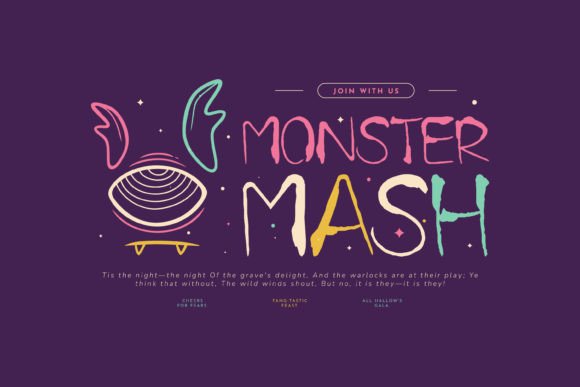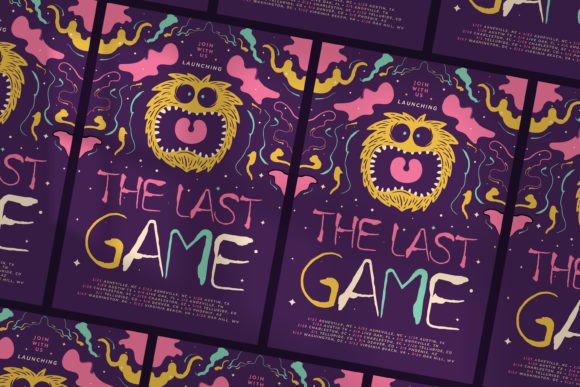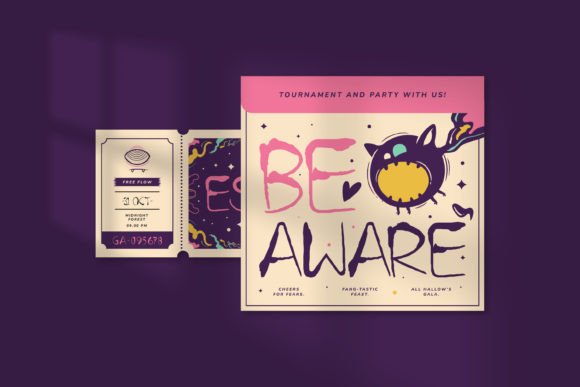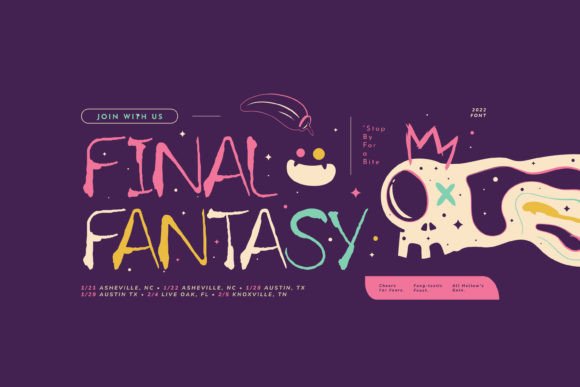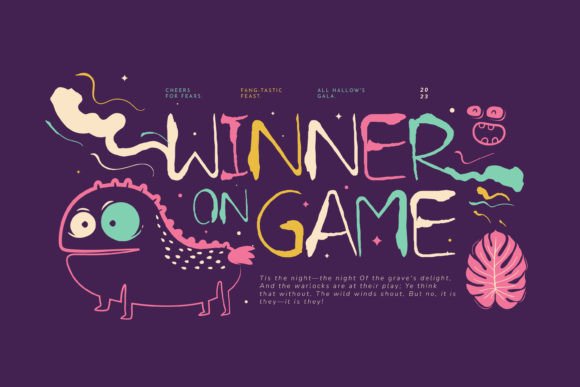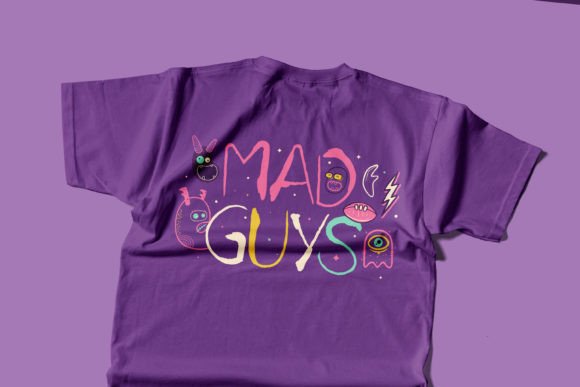
Introduction to Hipszon Font
Do you remember the excitement of holding a crayon and scribbling colorful patterns on a piece of paper as a child? For many of us, the joy of creating is a lifelong passion that never fades. As designers, we’re constantly on the lookout for tools that can help bring our imagination to life, and that’s where the Hipszon Font comes in – a playful and attractive display font that’s perfect for kids’ themes and designs.
With its fun, childish style, the Hipszon Font adds a touch of innocence and joy to any headline, logo, or advertisement. Its versatility makes it an excellent choice for designers looking to create high-quality designs for various creative projects, from children’s books to educational websites.
Key Features of Hipszon Font
- Perfect for use in logos, branding materials, and other design elements where a distinctive and modern look is desired.
Honest Review: Hipszon Font
I recently came across the Hipszon Font and I must say it’s a great addition to any design resource collection. As a designer, I’m always on the lookout for high-quality fonts that can elevate a creative project.
- ✨ The Hipszon Font has a unique and modern design that works well for a variety of applications, from headings to body text.
- ⚠️ The font may not be suitable for very small text sizes, as the characters can become blurry.
- ⚠️ The font is only available in a few weights and styles, which may limit its versatility.
Overall, I’m impressed with the Hipszon Font and I think it’s a great addition to any design resource collection. While it may have some limitations, it’s a high-quality font that’s well worth using in a creative project.
Tips for Getting the Most Out of Hipszon Font
To get the most out of Hipszon Font, use it on a transparent background to create a striking visual effect. Experiment with different font sizes and styles to add depth and interest to your design. You can also use the font in combination with other design elements to create a cohesive and professional look.
Hipszon Font is ideal for use in creative projects such as logos, posters, brochures, and social media graphics. Its high quality and unique design make it perfect for any project that requires a professional and eye-catching look.